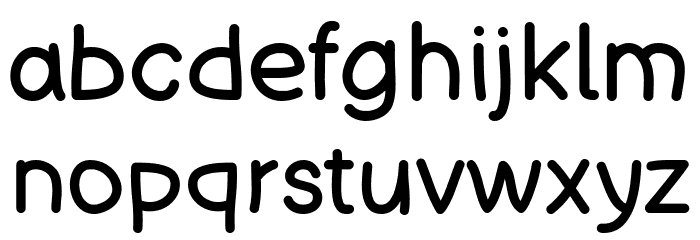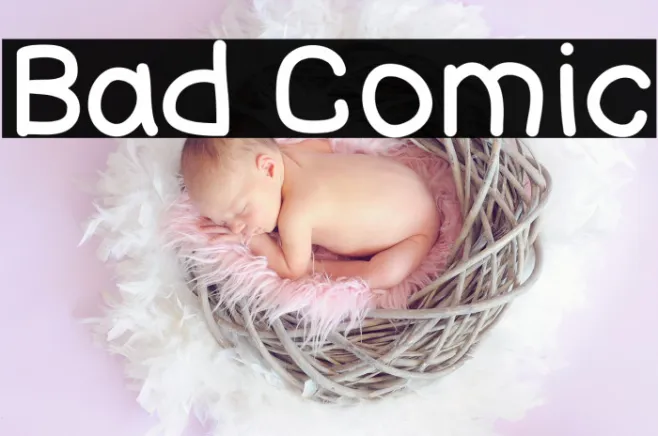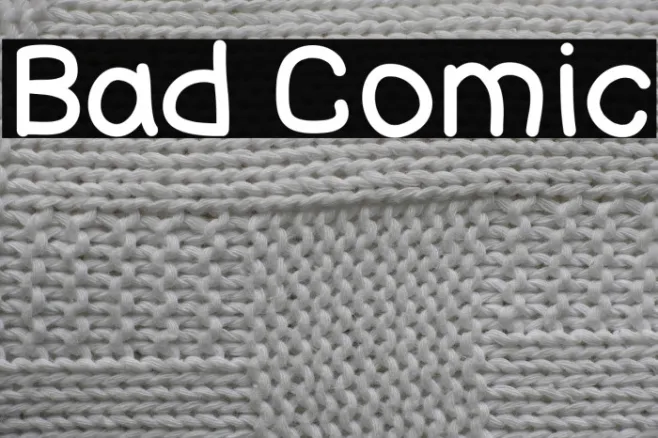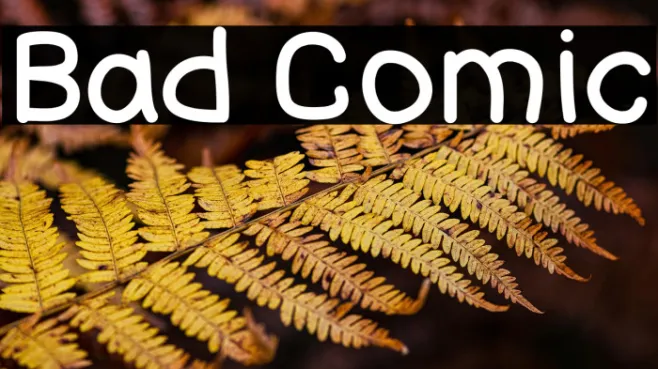
Bad Comic Font
This playful and informal typeface features rounded, slightly irregular letterforms that mimic the style of hand-drawn comic book lettering. The characters have a consistent stroke width, giving the font a uniform appearance while maintaining a casual and friendly vibe. The uppercase and lowercase letters are well-balanced, and the numerals are clear and easy to read. Special characters are included, adding versatility for various uses. The overall design is approachable and fun, making it suitable for projects that require a lighthearted and whimsical touch.
A playful, informal typeface with rounded, hand-drawn comic book style letters.
- Proposed Projects: Ideal for children's books, comic strips, casual invitations, and playful branding.
- Overall Style: Casual
- Use Case: Headlines, Logos, Informal Text